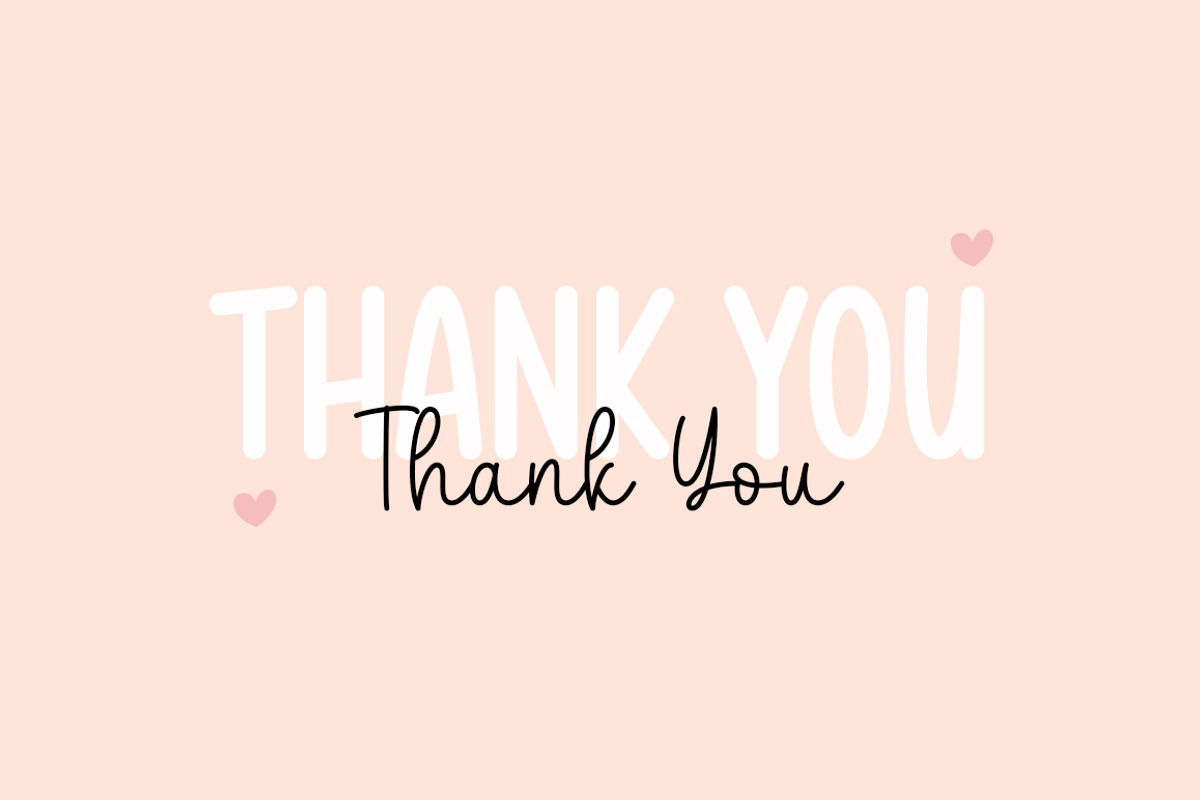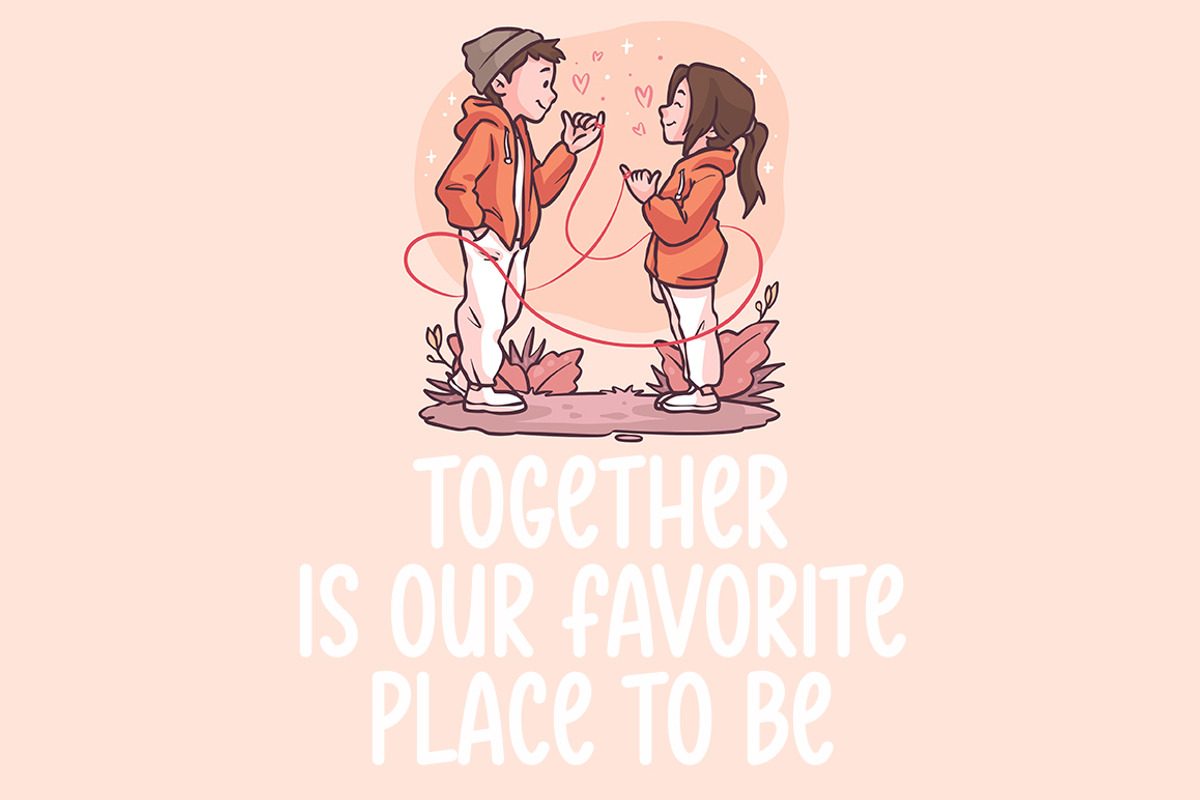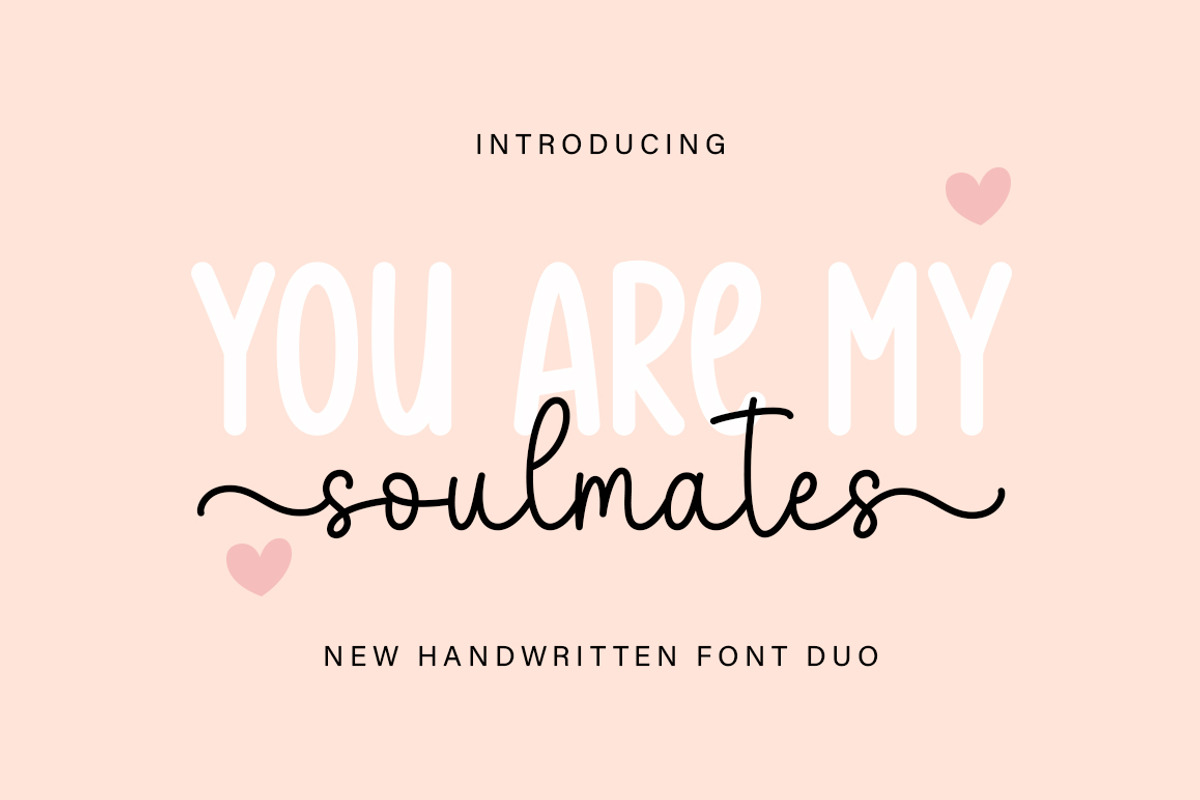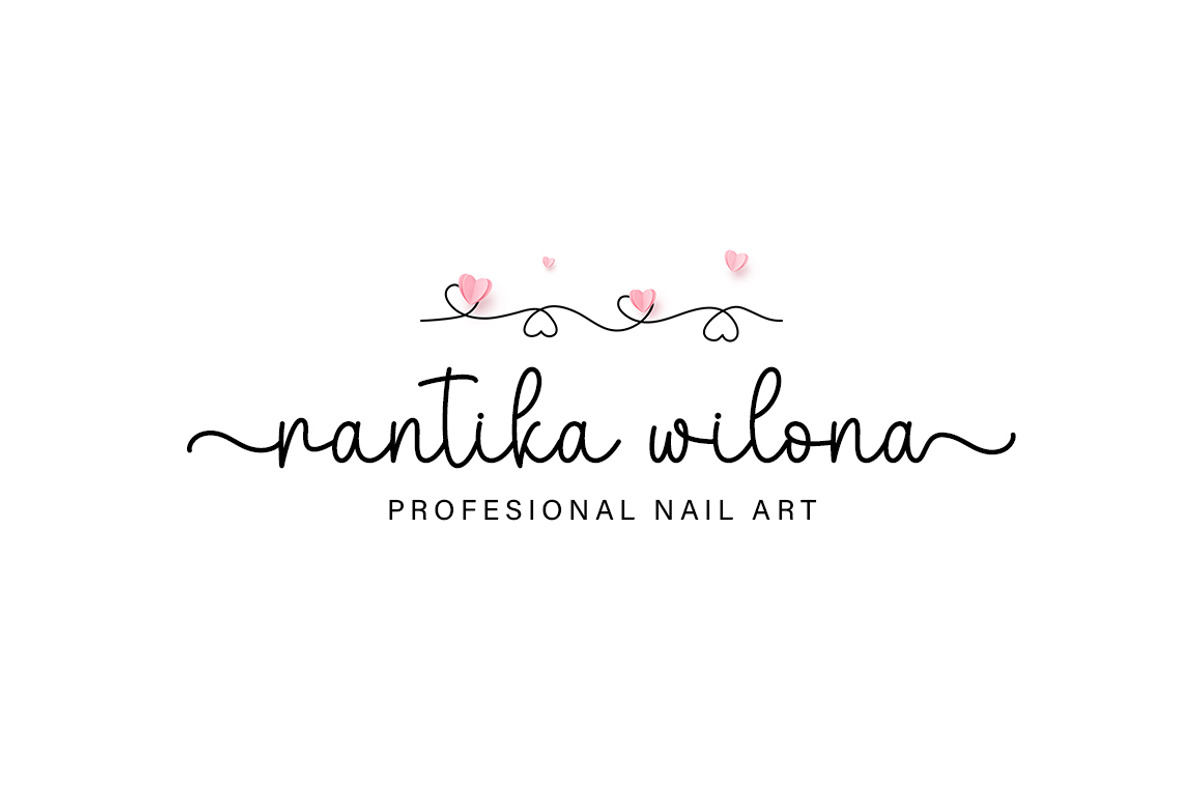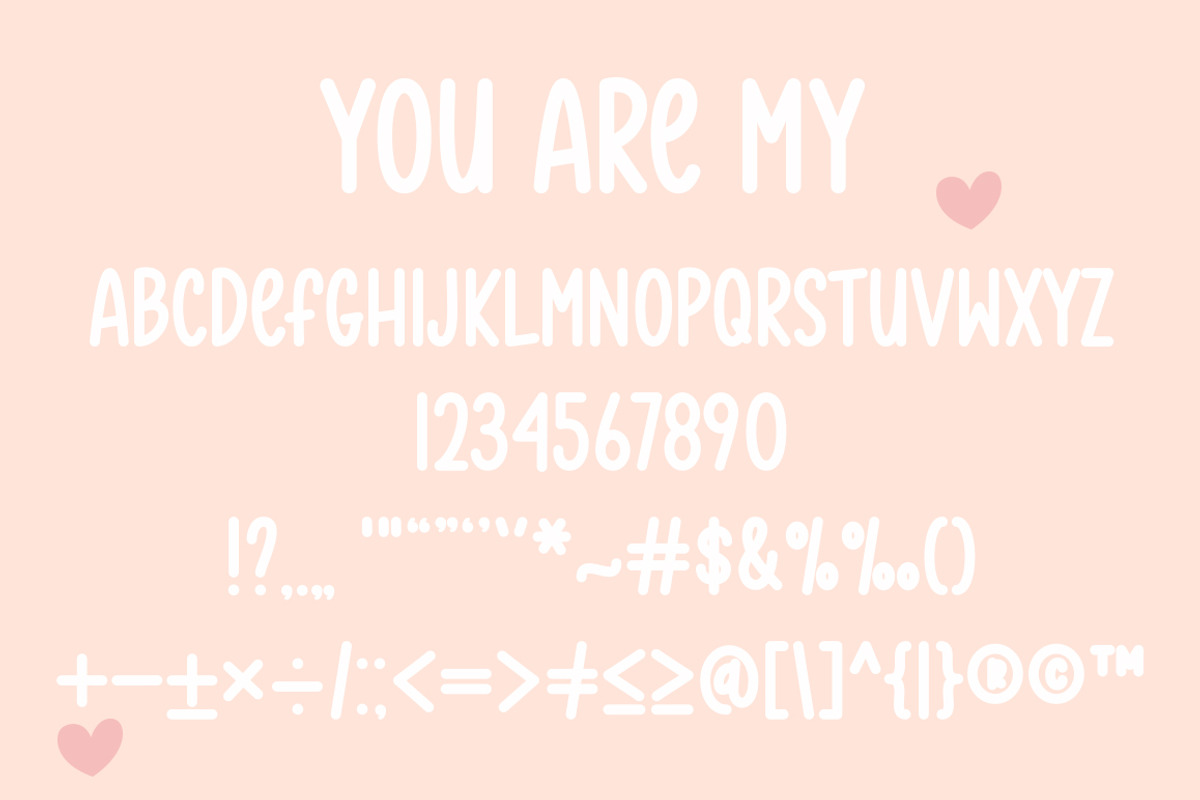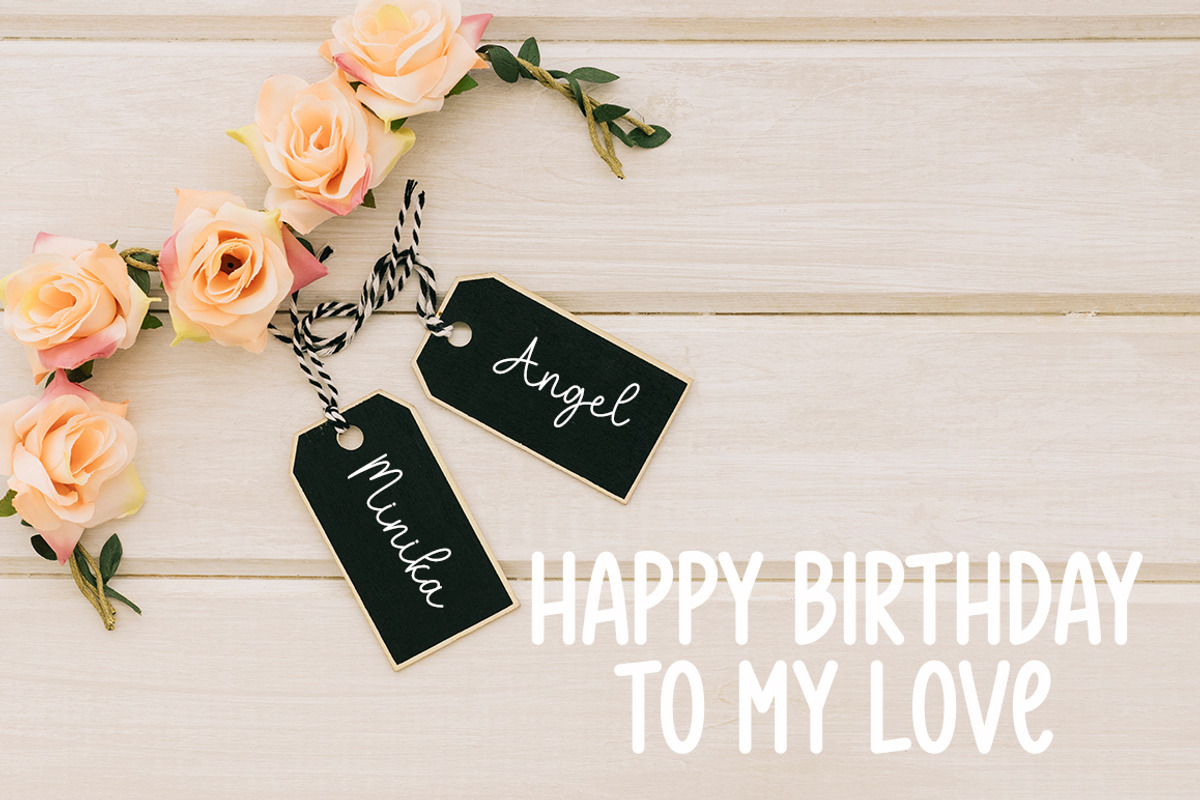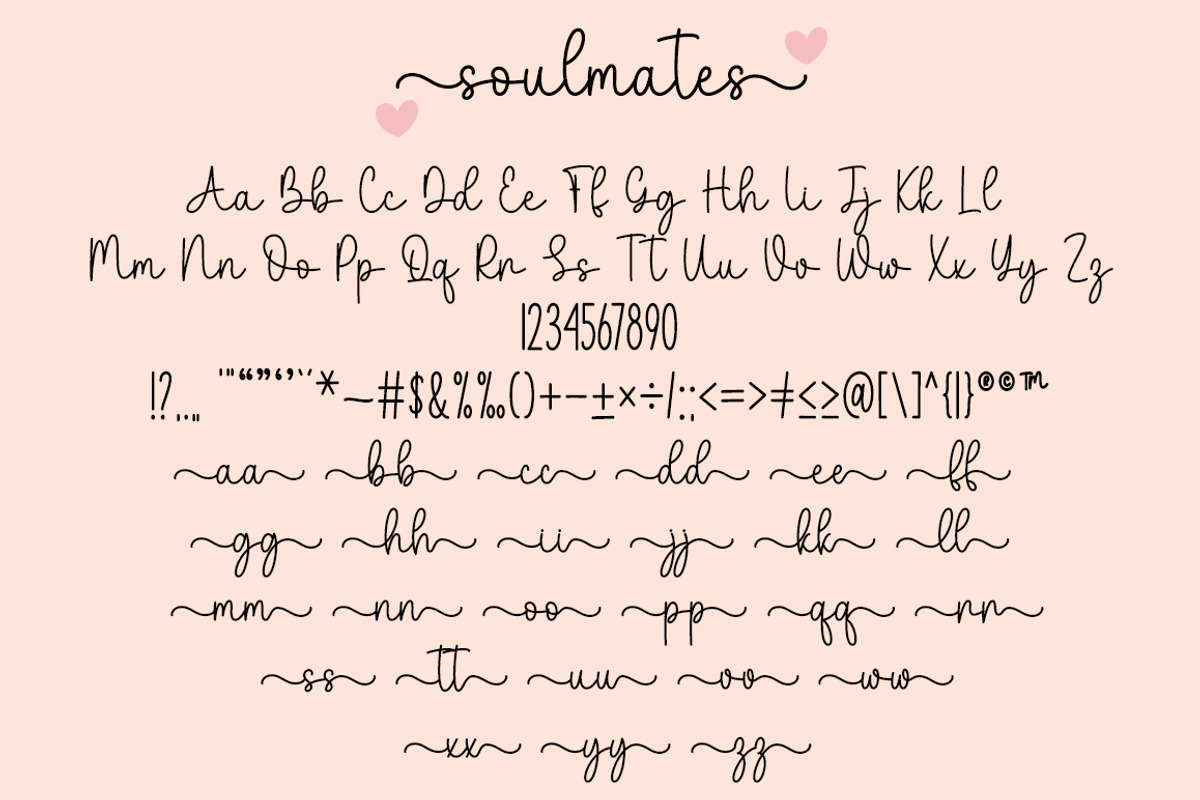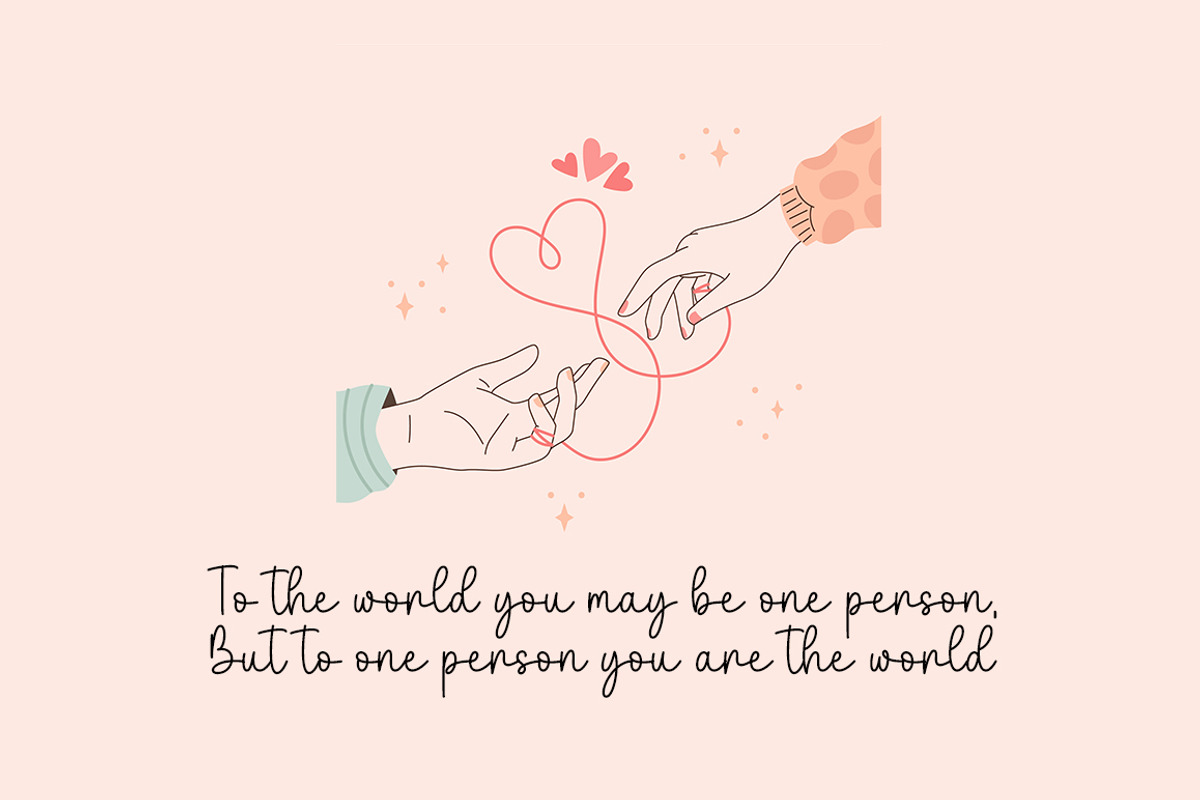
You Are My Soulmates Duo
You Are My Soulmates Duo is a stylish and delicate duo font (sans serif and script) suitable for a wide spectrum of applications. From greeting cards to headlines, this font will guarantee a romantic touch to each of your creations! You Are My Soulmates Duo is PUA encoded which means you can access all of the glyphs and ligatures with ease.